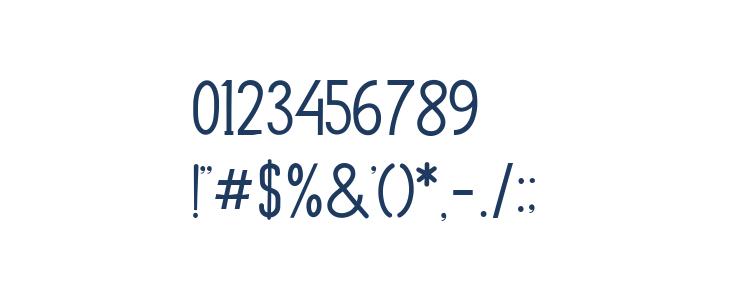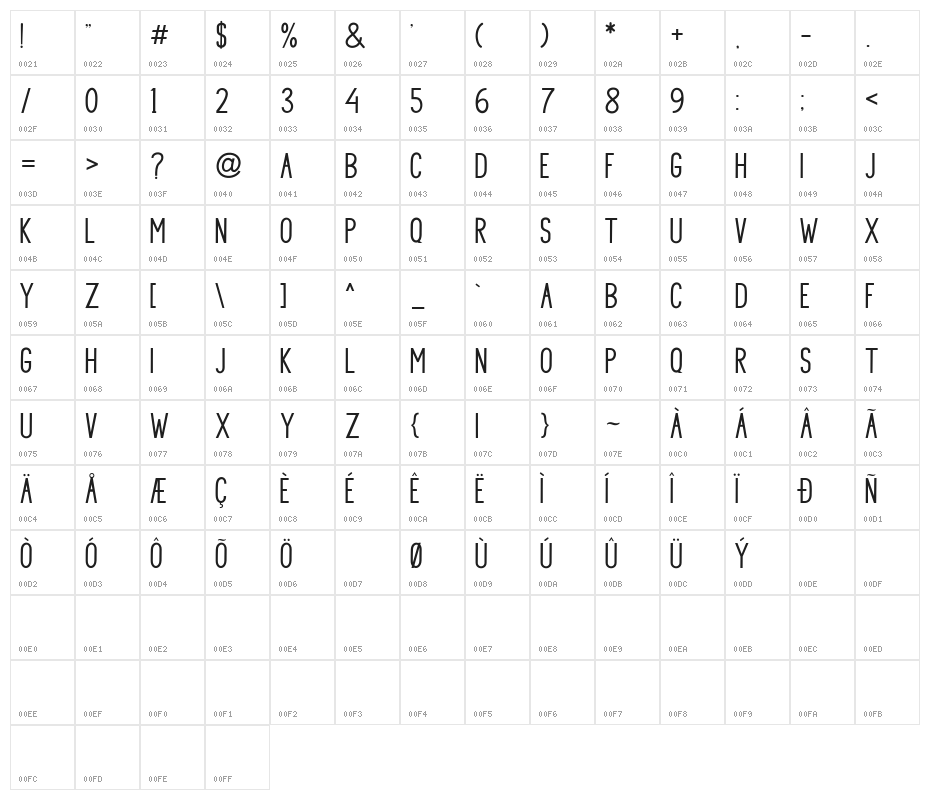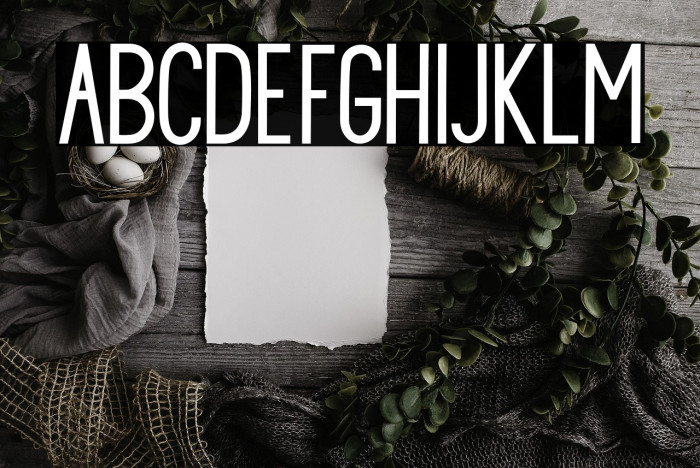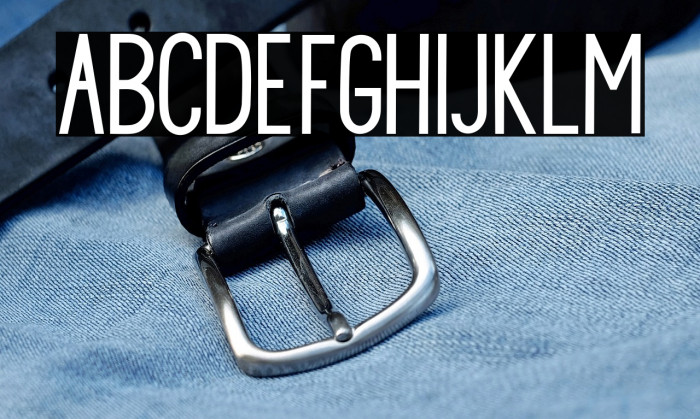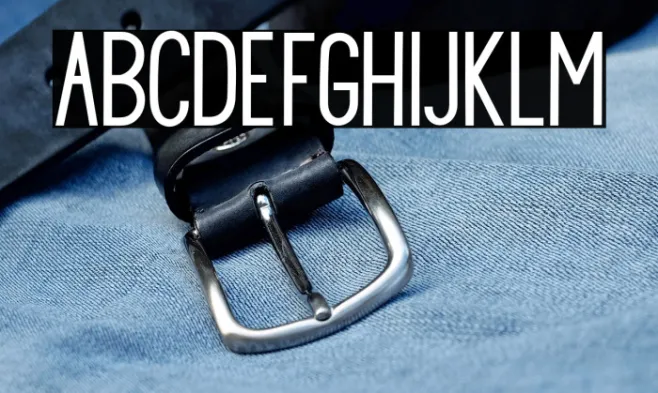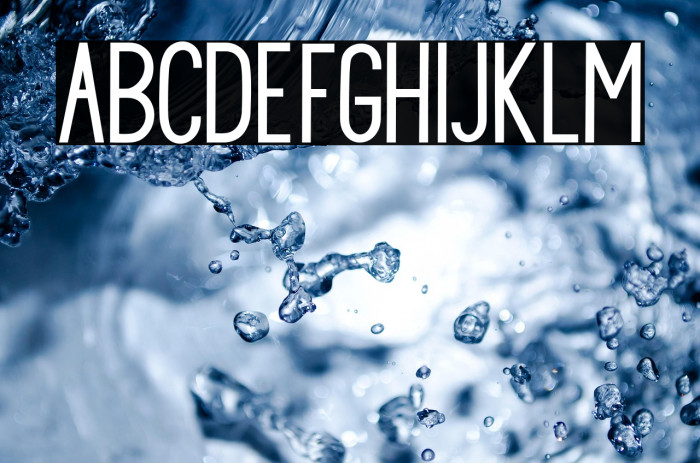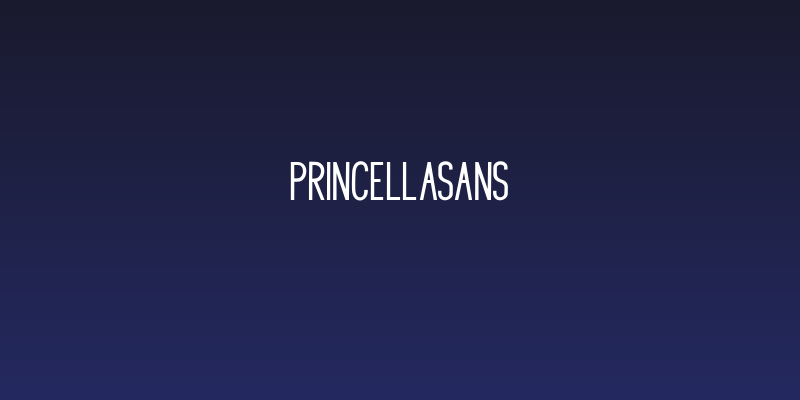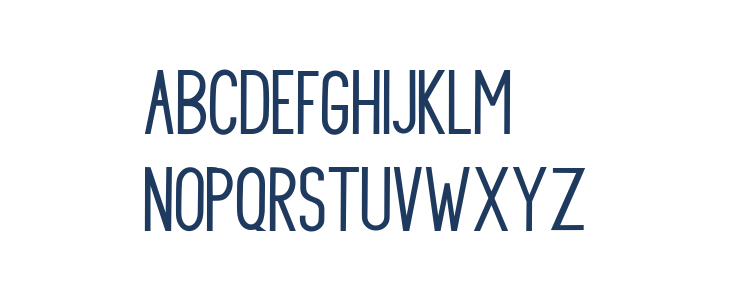
PrincellaSans Font
PrincellaSans Description
This font features a clean, modern sans-serif style with tall, narrow letterforms. The characters are evenly spaced, providing a balanced and harmonious appearance. The strokes are consistent in thickness, offering a uniform look across all characters. The design is straightforward yet elegant, making it versatile for various applications. The font includes a full set of uppercase and lowercase letters, numerals, and a range of punctuation marks and special characters. Its simplicity and clarity make it highly readable, even at smaller sizes.
Use CaseHeadlines, Body text, Logos
Proposed ProjectsIdeal for branding, advertising, web design, and editorial projects where clarity and modernity are key.